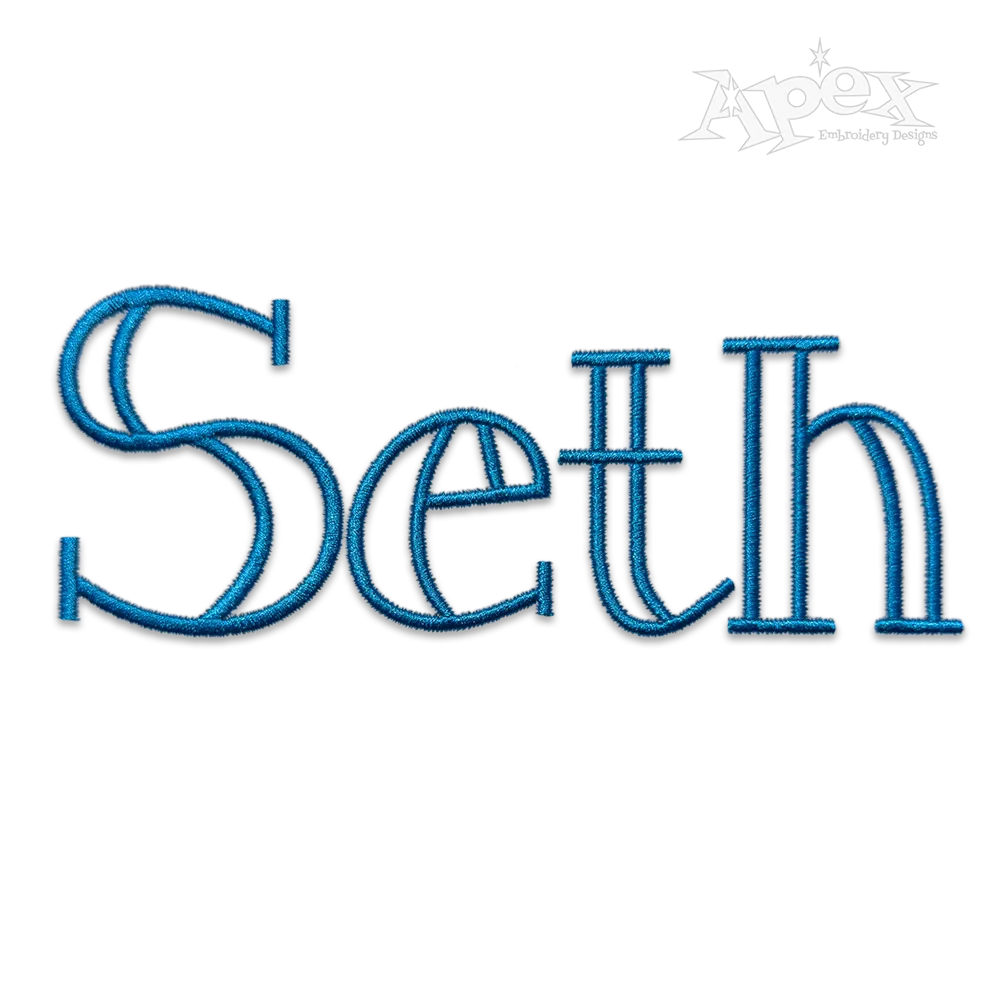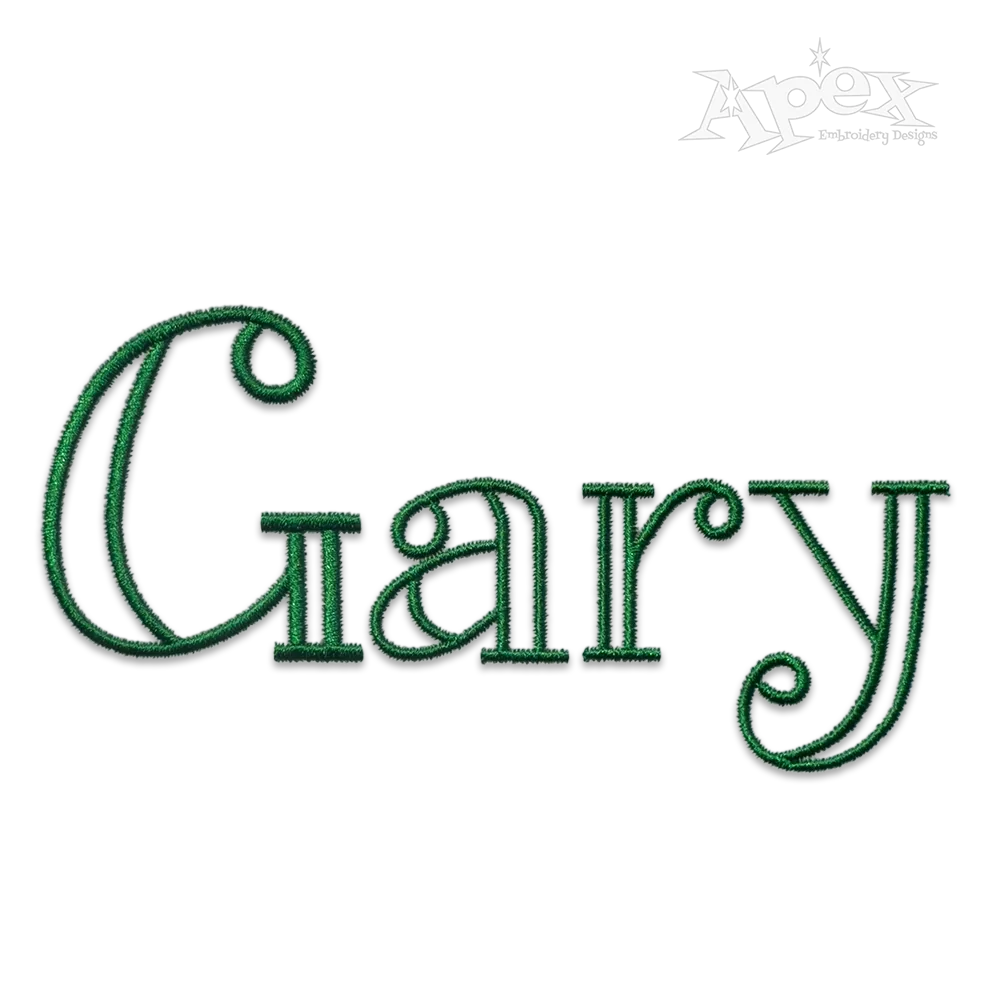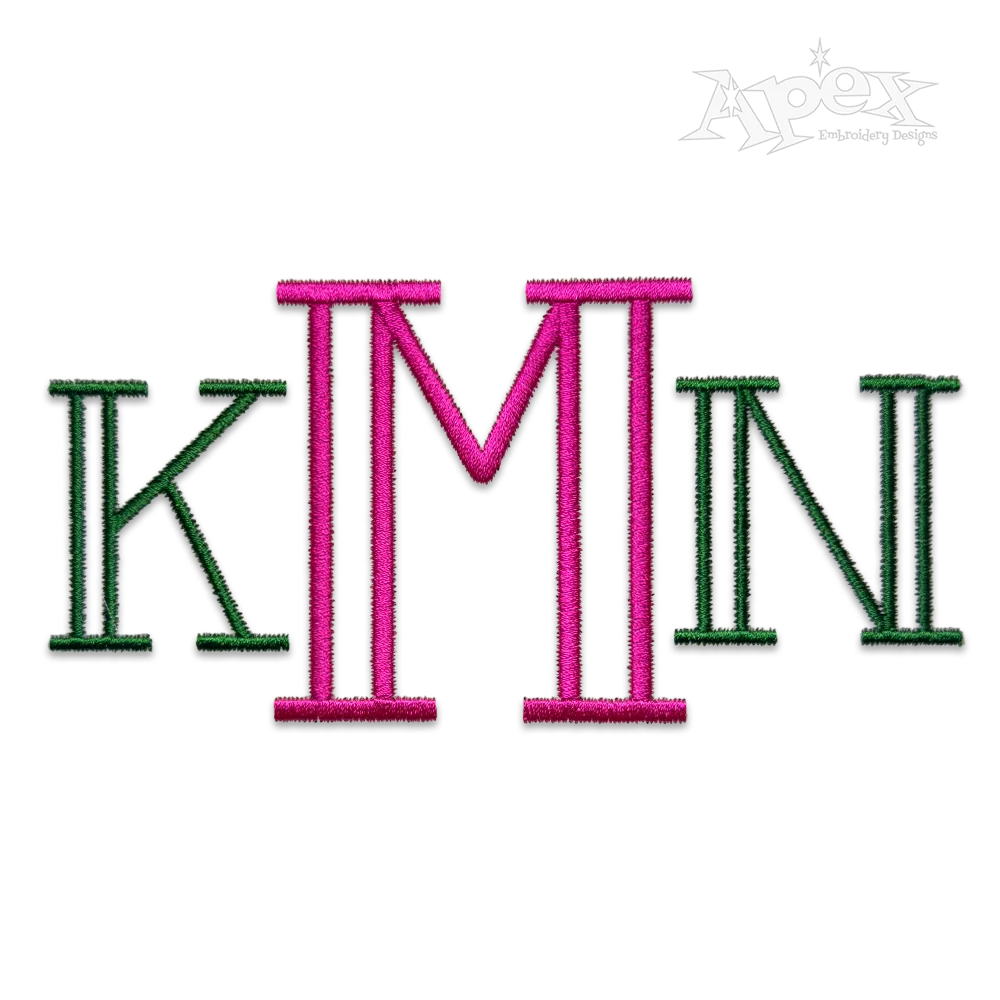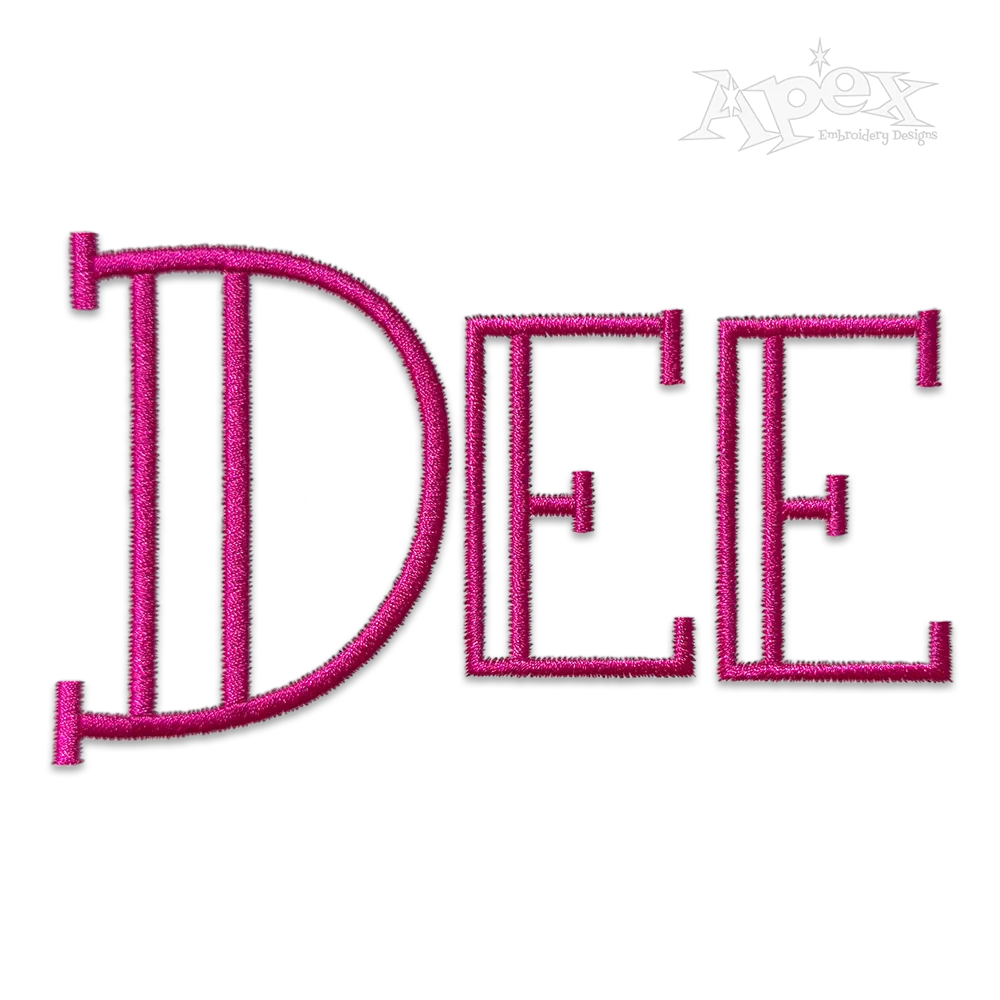
Dionne Embroidery Font
There is an undeniable allure to lettering that balances mid-century couture confidence with fluid, contemporary grace. When digitizing the Dionne Embroidery Font, our studio drew inspiration from classic salon glamour and bespoke French tailoring—where every line possesses rhythm and every flourish commands presence. Dionne moves across fabric like liquid silk cast in thread, offering a bold yet refined typographic architecture. Designed for embroiderers seeking a distinct signature statement, its graceful curves and tapered terminals bring an effortlessly luxurious demeanor to personalized textiles, elevating custom monogramming from simple stitching into an artful keepsake.
Project Ideas for Dionne Embroidery Font
The statuesque silhouette of Dionne makes it an exceptional choice across classic tailoring and modern textile crafts:
- Heirloom Bedding & Pillow Shams: Embroider center-staged three-letter monograms onto crisp percale or Belgian linen duvet covers for a boutique hotel atmosphere.
- Bridal Party Keepsakes: Stitch sweeping initials onto matte satin bridal robes, silk eye masks, and ring bearer pillows for an unforgettable personalized gifting suite.
- Luxury Table Linens & Cocktail Napkins: Add tailored sophistication to entertaining with tonal or contrasting thread on mitered-corner linen dinner napkins.
- Bespoke Resort Wear: Enhance relaxed linen button-downs, swim cover-ups, and oversized straw sun totes with crisp coastal monogramming.
- Heavyweight Canvas Totes: Transform utilitarian weekender bags and tennis totes into chic designer statements with a striking 4-inch focal initial.
Achieving a couture look relies as much on placement geometry as it does on digitizing finesse:
- Corner Diagonal: For dinner napkins and pocket squares, angle Dionne at 45 degrees, set 1.5 to 2 inches from the bottom right corner point to ensure an elegant drape when folded.
- Center Chest & Left Pocket: Place the 2-inch or 3-inch lettering 7 to 9 inches down from the shoulder seam for blouses and resort shirts, or precisely centered 0.5 inches above a shirt pocket hem.
- Turnback Cuffs: Use the 2-inch sizing across French cuffs or pajama sleeve cuffs, orienting the baseline toward the wrist edge so the letters display upright when sleeves are turned back.
- Border Alignment: Position Dionne centered 3 inches above the woven hemline of plush bath sheets and guest towels for an uninterrupted, balanced sightline.
Dionne Embroidery Font Craft & Letterform Details
Every letter in the Dionne Embroidery Font has been hand-plotted with meticulous attention to stitch direction, pull compensation, and textural density. Rather than relying on automatic conversions, each character is sculpted to honor the organic sweep of high-fashion calligraphy while maintaining embroidery stability. The satin stitch paths are programmed with micro-angled transitions at every curve, capturing ambient light across the thread luster to produce a luminous, dimensional sheen. Tapered terminals flare subtly at stroke ends, imparting a sophisticated serif whisper without creating stitch bulk. Underneath, a dual-layer contour and traveling underlay scaffold the satin columns, ensuring smooth edge definition, preventing fabric puckering, and delivering pristine needle penetrations whether stitched on supple silk or structured linen canvas.